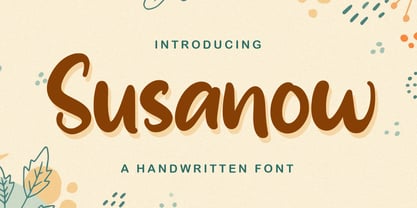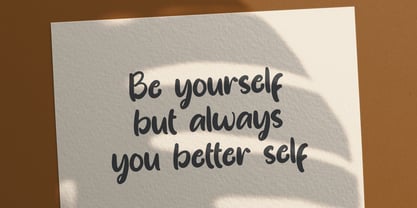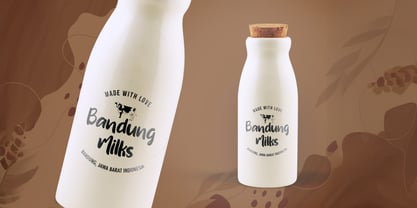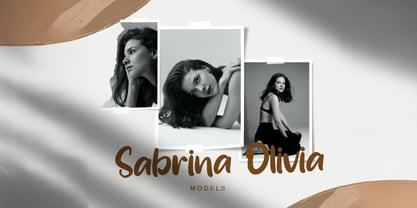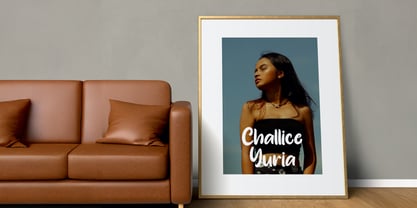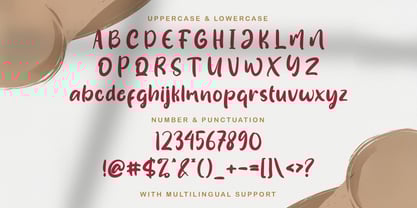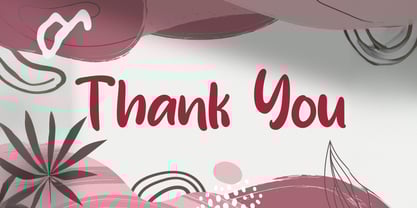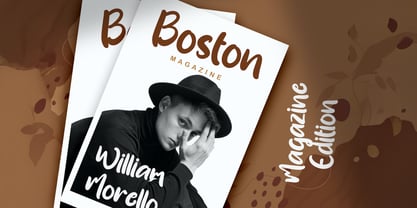
La familia tipográfica Susanow fue diseñada por Virgiawan Listanto y publicada por Stringlabs Creative Studio. Susanow contiene 1 estilos. Más información sobre esta familia
Susanow is a bold handwritten font with a smooth, expressive flow and a confident attitude. Its natural strokes and slightly edgy style make it perfect for designs that want to feel personal yet powerful blending modern charm with handwritten authenticity.
Diseñadores: Virgiawan Listanto
Fundición: Stringlabs Creative Studio